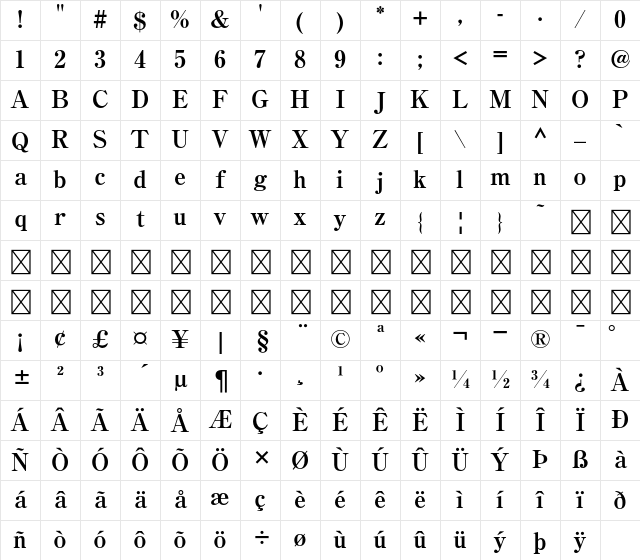
Complete A-OTF Ryumin Pro EB-KL glyph index. Displaying only characters natively supported by A-OTF Ryumin Pro EB-KL font.
A-OTF Ryumin Pro is a composed and adaptable typeface that performs quietly and consistently across a wide range of design contexts.